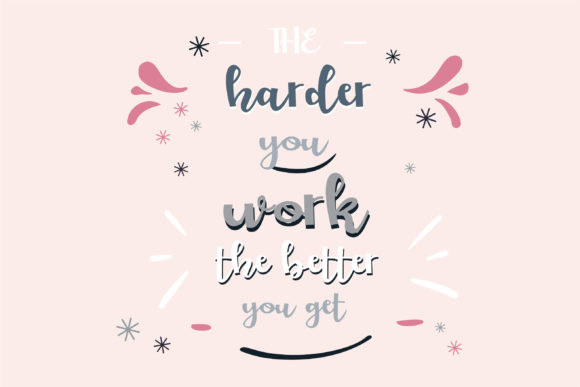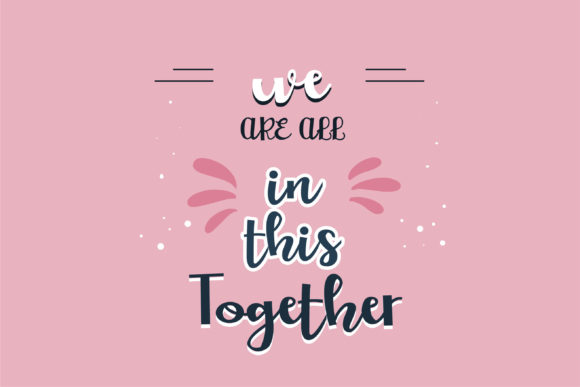
ZP Love of My Life Font
db-ku.com - Script & Handwritten -- This casual handwritten font is a bit bouncy with a nice mix of thick and thin lines. Use the greater than and less than glyphs for a fun flourish. Stencil version included.